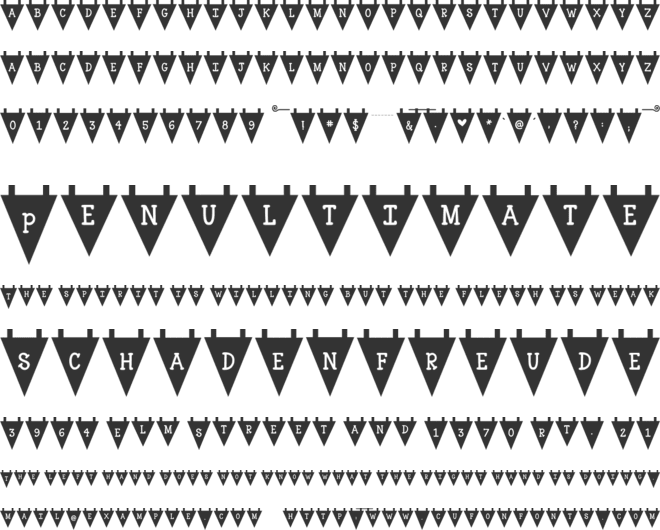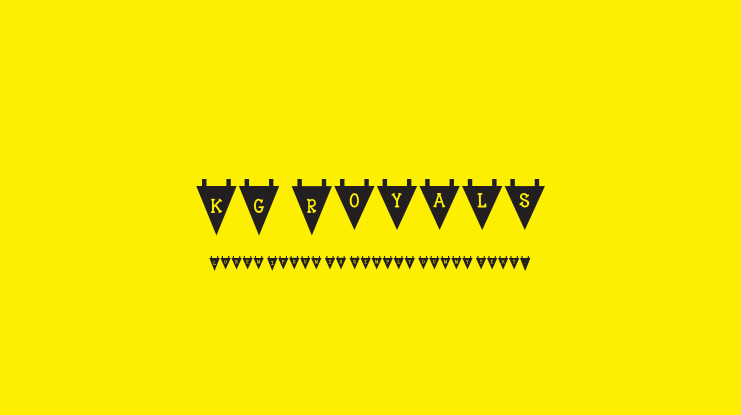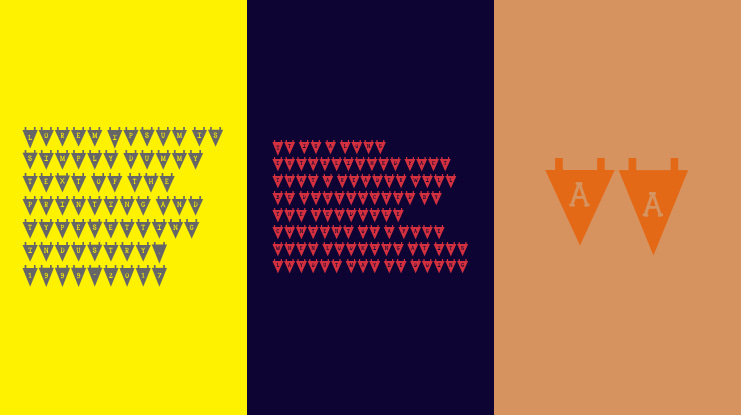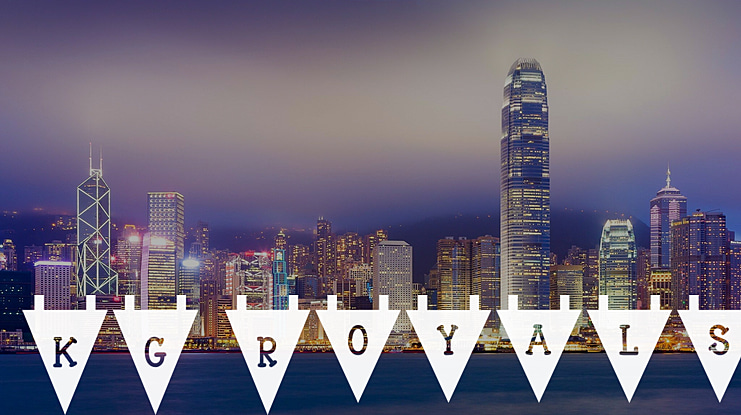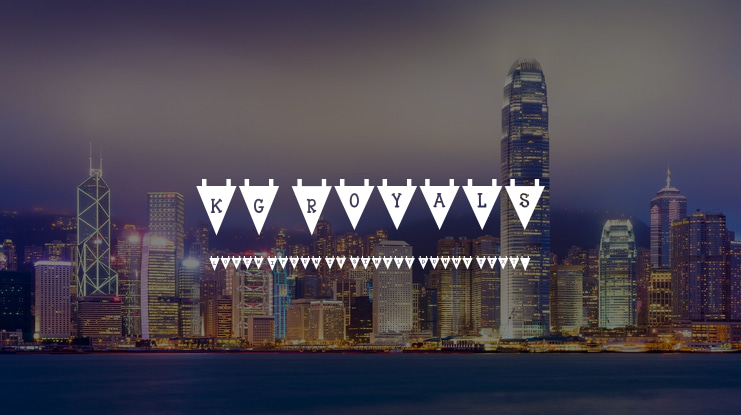
KG Royals Font
Build your own stacked bunting by using these easy-to-layer bunting images.
Capital letters have long alphabet bunting, lowercase letters have short alphabet bunting.
() (Parentheses), [] (Braces) and {} (Brackets) have tails to attach the bunting and the underscore _ has a connecting piece to make the bunting "ribbon" on top connect over each piece.
Solid buntings are in the greater than and less than keys <> (greater than makes a long bunting, less than makes a short bunting). Use these to build shadows or put a color behind your bunting. Totally customizable and fun!